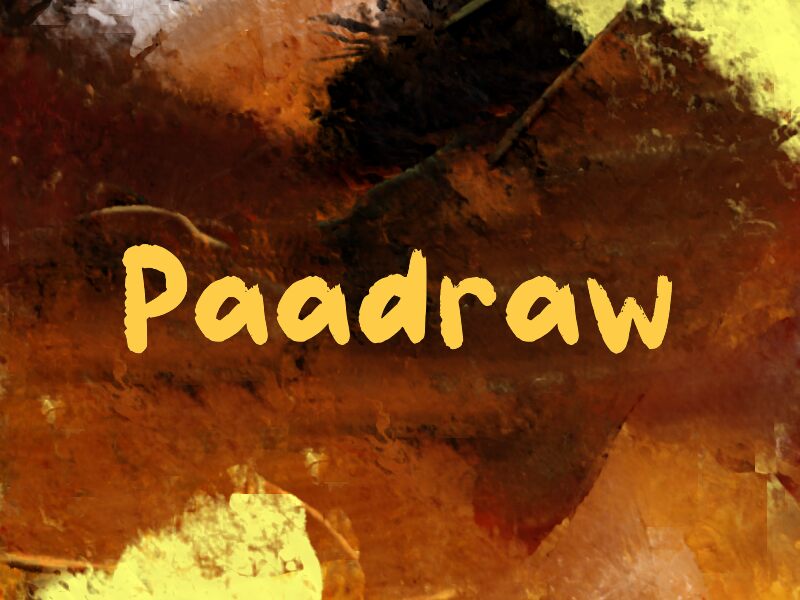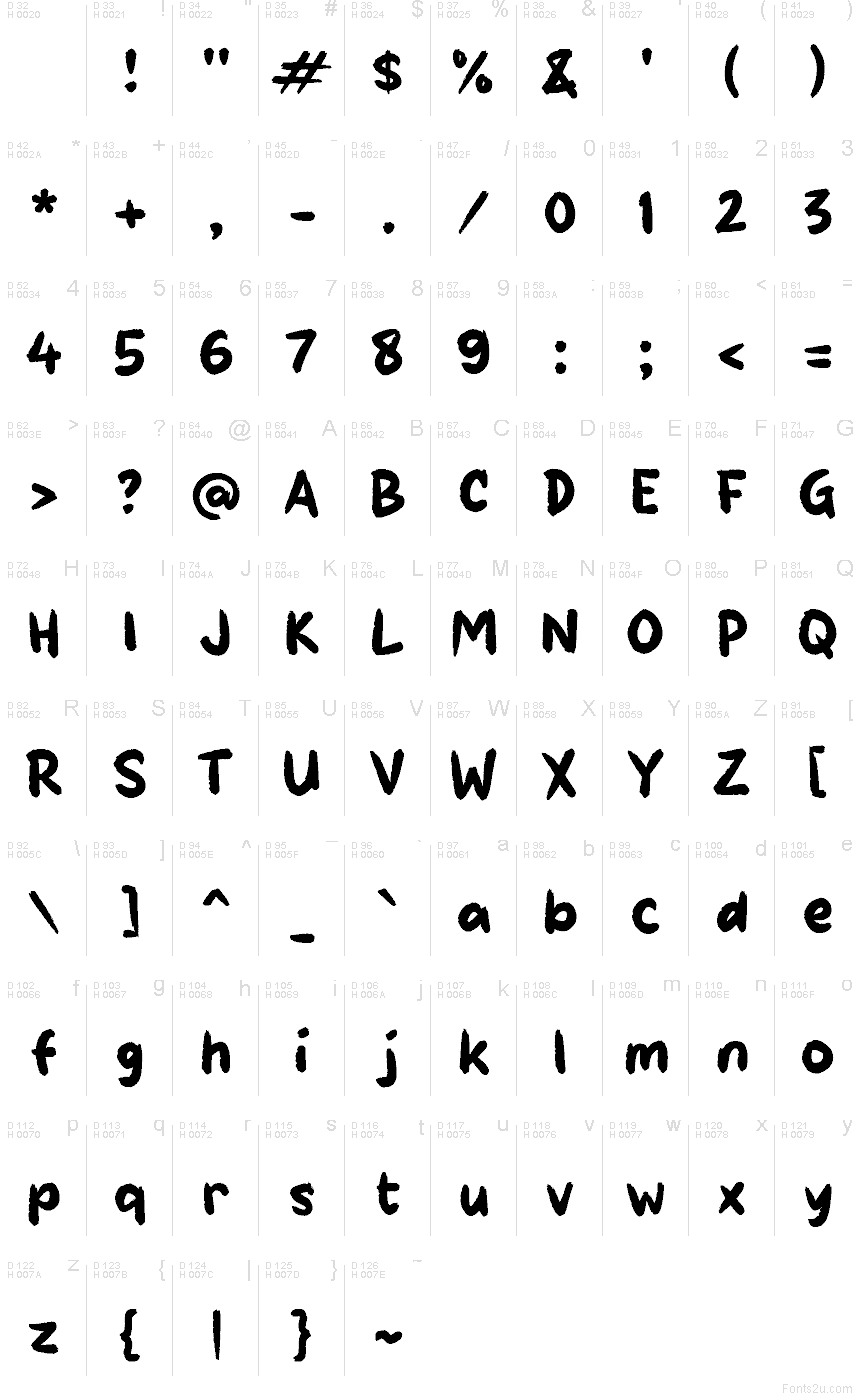
Paadraw
Paadraw font by wep is a free brush font that looks like it’s been painted in thick, inky strokes. Each letter feels a little wild and hand-done, with chunky curves and rough, grainy edges that keep it from ever looking stiff or digital. The result is loud, friendly, and full of motion—like a word hurriedly scrawled on a poster just before the crowd arrives.
Using Paadraw, this free font shines on event posters, craft packaging, bold social graphics, YouTube thumbnails, kids’ book covers, and playful branding that needs a human, DIY punch. Its dense, dark texture also works beautifully for stickers and merch where you want text to read fast at a glance. Try pairing Paadraw with a clean geometric sans in smaller text to keep the message clear while letting the brushy headline do all the shouting.